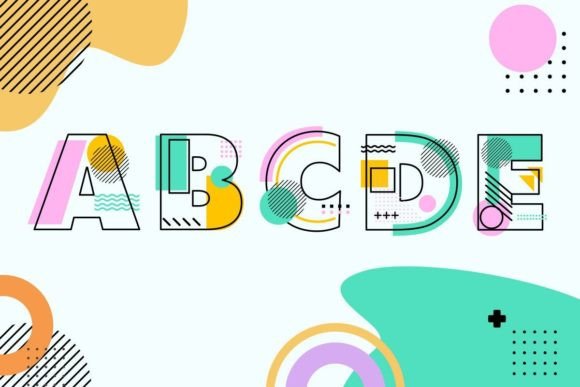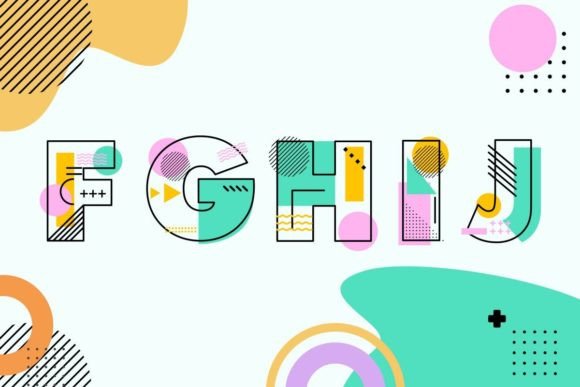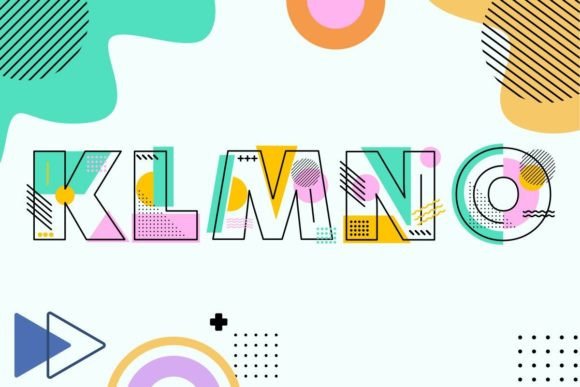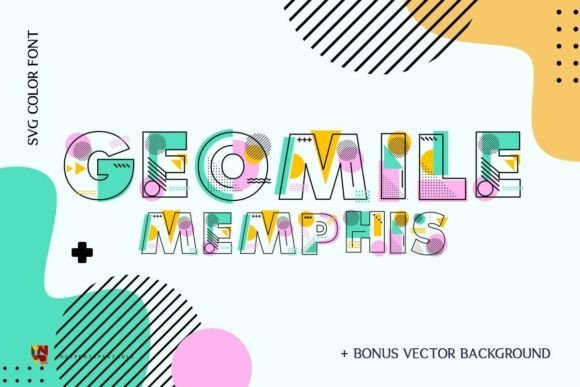
Introduction to Geomile Memphis Font
Geomile Memphis is a splendid bold geometrical color font with a Memphis contemporary design style.
It has a modern yet whimsical style and it will undoubtedly immerse your designs into a fun world Note.
Geomile Memphis Font offers exceptional quality and versatility, making it a valuable addition to your design toolkit. Whether you’re creating for personal projects or commercial use, Geomile Memphis Font delivers professional results.